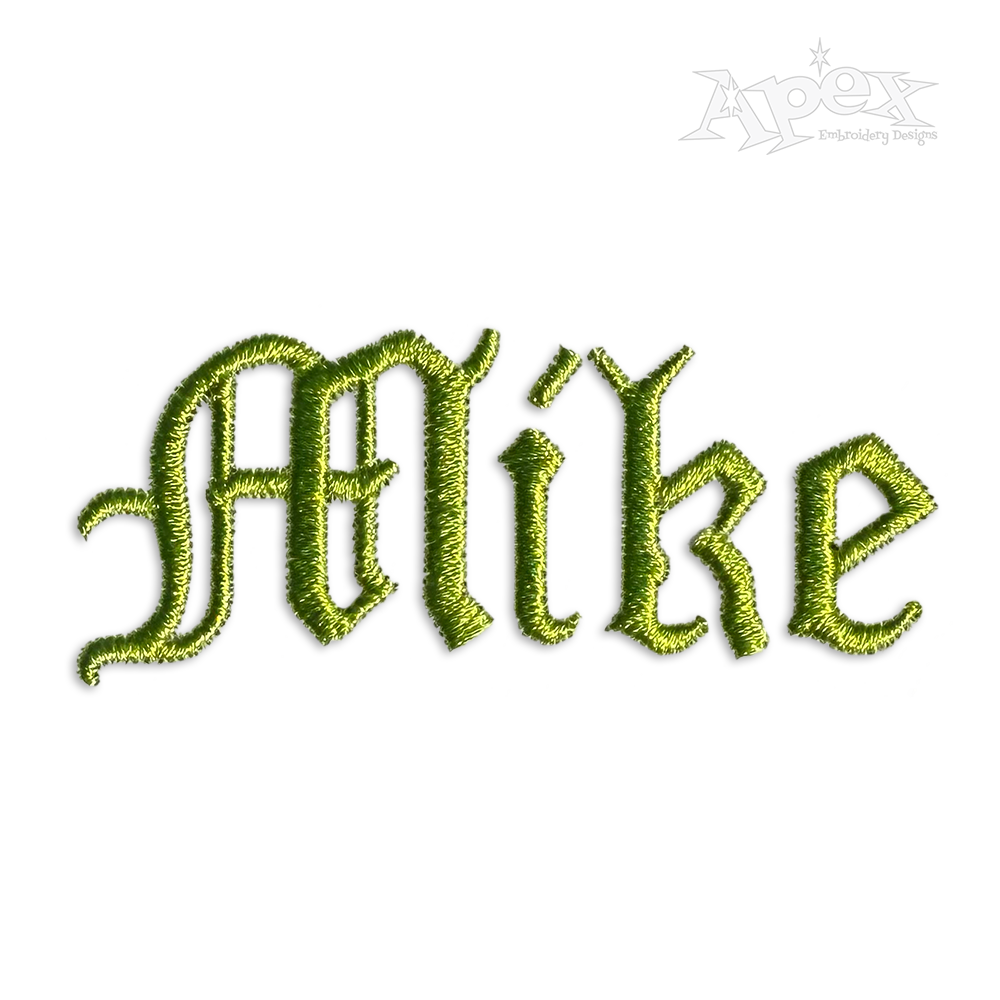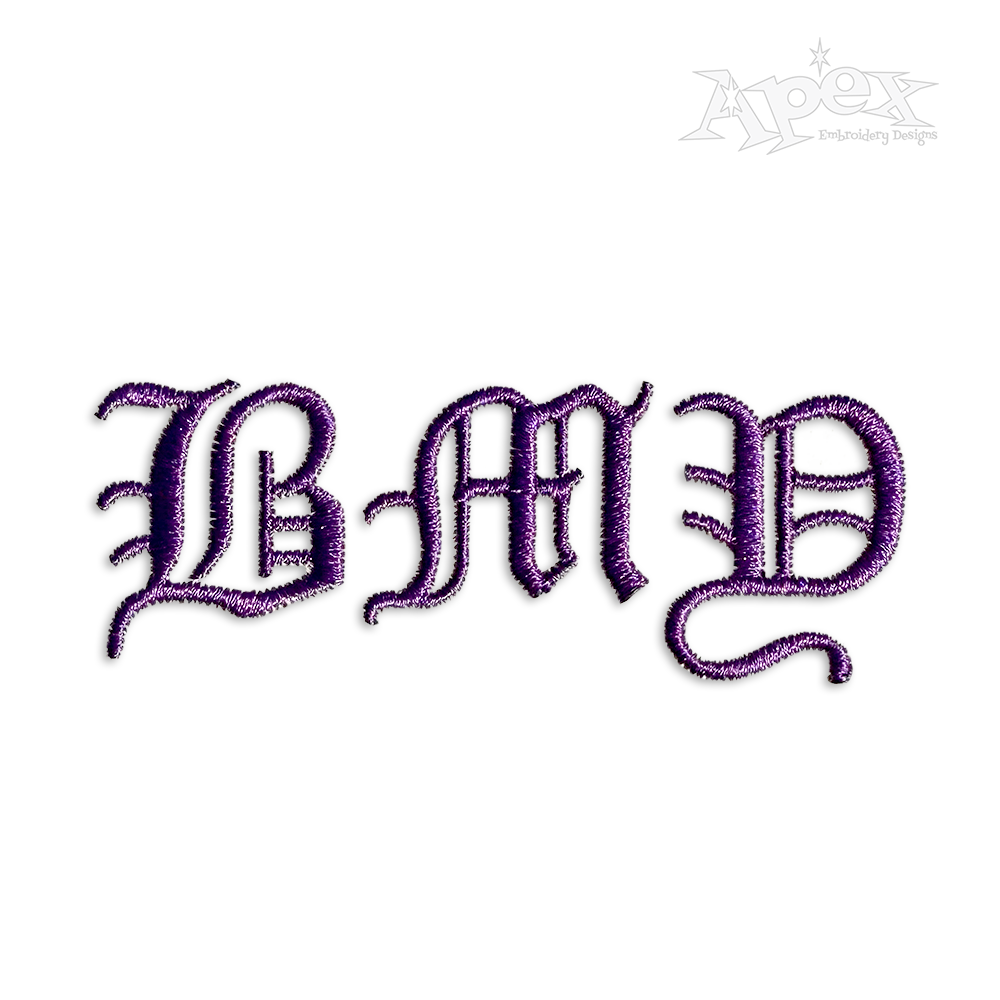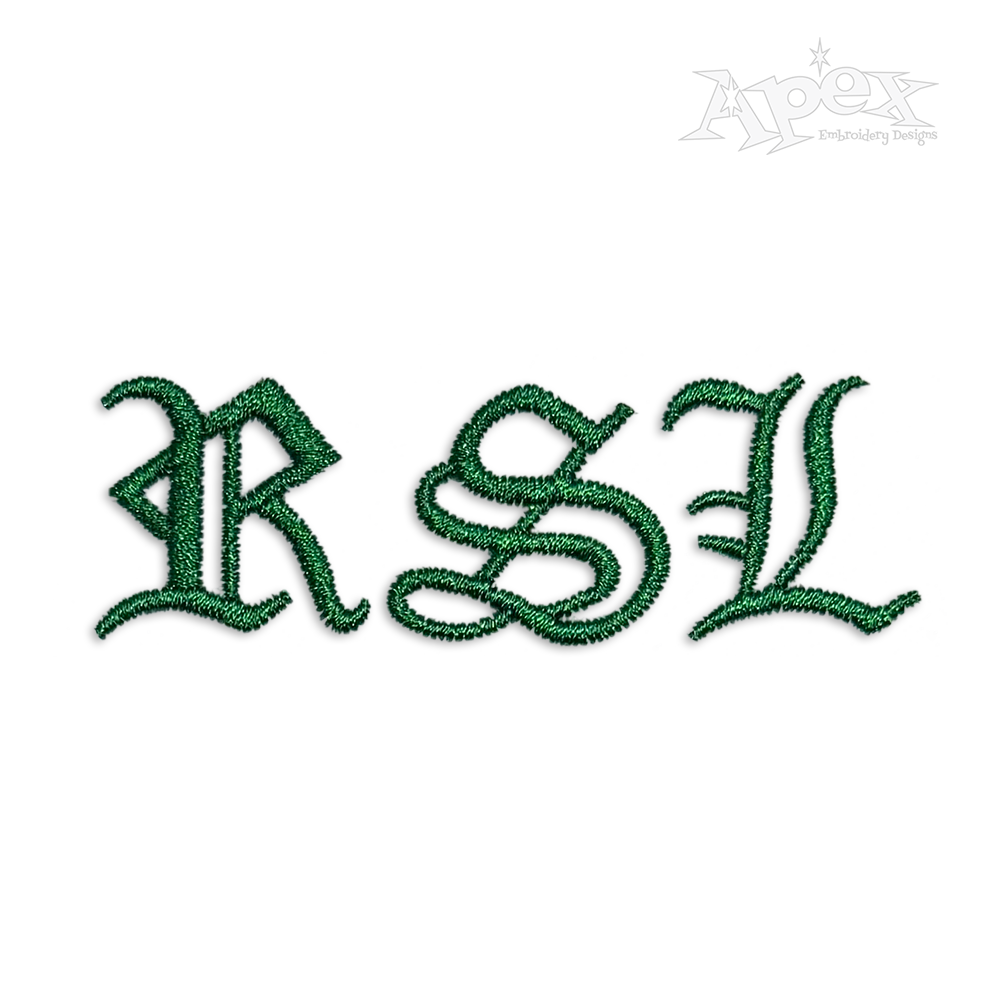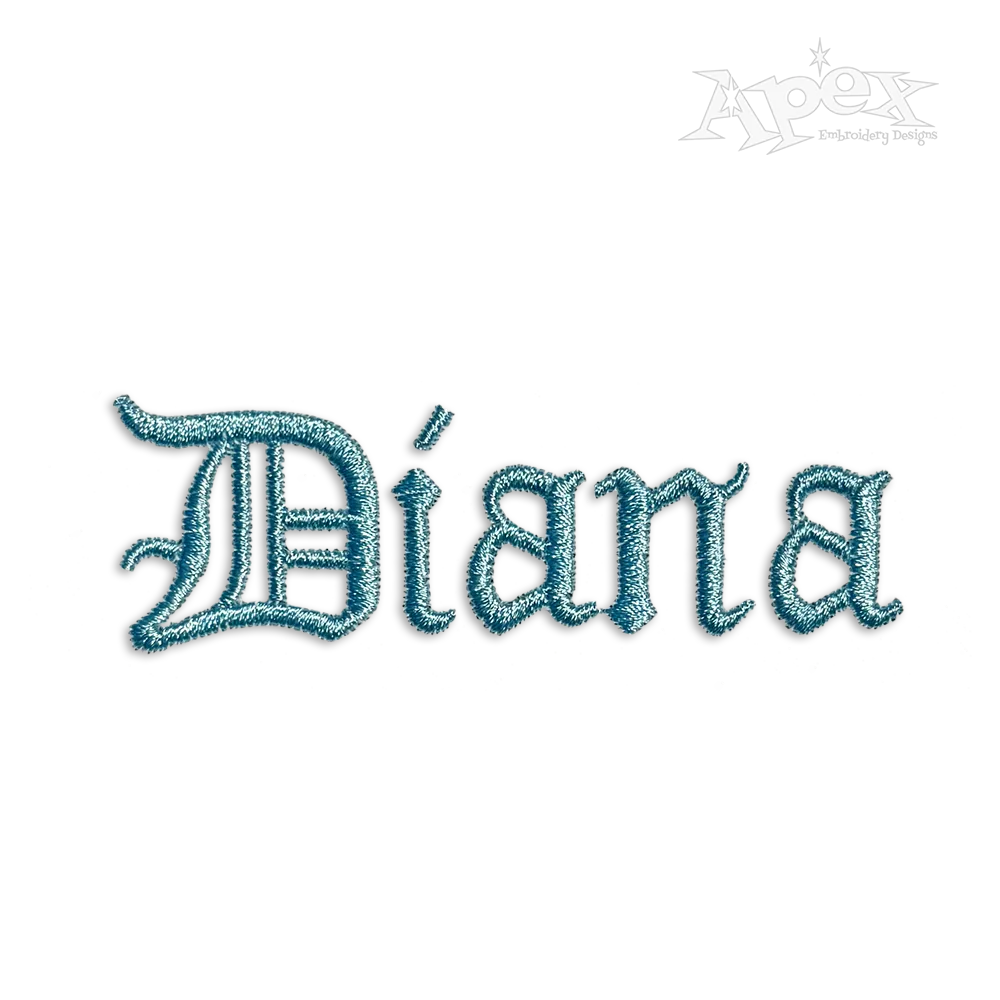
Gothic Small Embroidery Fonts
Digitizing at micro scales is an intimate balancing act between architectural precision and the fluid physics of thread, particularly when honoring the austere, dignified lines of gothic typography. When crafting the Gothic Small Embroidery Fonts in our studio, we drew inspiration from the structured discipline of historical blackletter and vintage architectural sans—distilling their commanding, vertical stature into wonderfully petite dimensions. Scaling down letterforms without sacrificing clarity is an exacting art; every single angle, terminal, and internal counter was individually re-proportioned by hand to avoid thread crowding and maintain pristine legibility. The result is an impeccably crisp satin stitch alphabet that brings distinguished character, heirloom refinement, and understated drama to the most intimate personalized embroidery projects.
Designed with meticulous attention to miniature stitch architecture, this versatile embroidery font collection includes four carefully graded sizes engineered to execute cleanly without thread distortion or fabric stress:
- 0.30-inch (approx. 7.6 mm) – Ultra-fine micro lettering, flawless for subtle French cuff initials, bespoke handkerchief hems, and delicate watch straps.
- 0.50-inch (approx. 12.7 mm) – Petite monogram scale, ideally balanced for tailored shirt plackets, collar points, and pocket flaps.
- 0.75-inch (approx. 19 mm) – Mid-petite size, stunning for luxury linen cocktail napkins, compact cosmetic pouches, and bespoke ribbon ties.
- 1.00-inch (approx. 25.4 mm) – Anchoring small size, lending bold architectural clarity to heirloom guest towels, personal layettes, and tote accents.
Each size contains complete uppercase and lowercase letterforms accompanied by essential punctuation, digitized with precision entry and exit coordinates to ensure smooth, efficient thread flow on both domestic and commercial multi-needle embroidery machines.
Gothic Small Embroidery Fonts Craft & Letterform Details
The true mastery of miniature embroidery lies beneath the surface, where stitch geometry dictates visual sharpness. Standard scaling software often reduces lettering by compressing stitch points, causing dense thread clusters and unsightly puckering. To overcome this, our digitizers built the Gothic Small Embroidery Fonts from the ground up, calculating precise pull-compensation and underlay paths specifically calibrated for every single millimeter fraction.
We sculpted each letterform with specialized travel stitches concealed deep within the core of the vertical stems, avoiding visible jump trims and preventing fragile edge bleed. The crisp terminals and structural crossbars are finished with high-density, low-friction satin stitch columns that glide effortlessly over fine linen, crisp poplin, and textured piqué. Every contour yields razor-sharp legibility, translating the stately majesty of historic gothic forms into flawless miniature stitchwork that remains strikingly legible for generations.